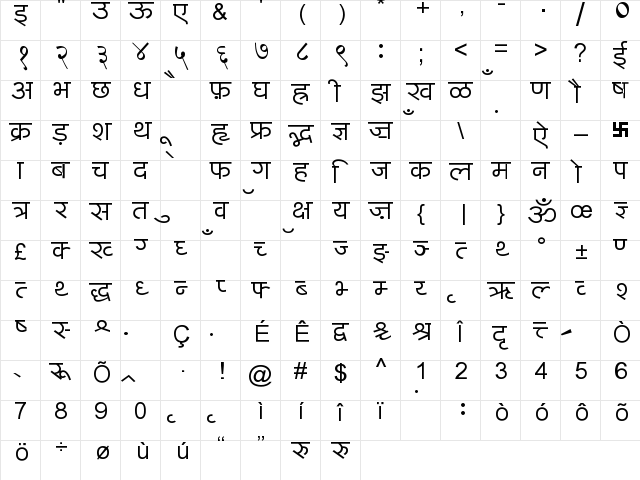
BharatVani Wide Font Regular
Design Context for BharatVani Wide Font Typeface
BharatVani Wide Font offers clean, dependable letterforms without strong stylistic allegiance, making it a practical choice for designers who need flexibility.
Pro Tip: Use BharatVani Wide Font in both headline and body roles to test its range before committing to a single application.